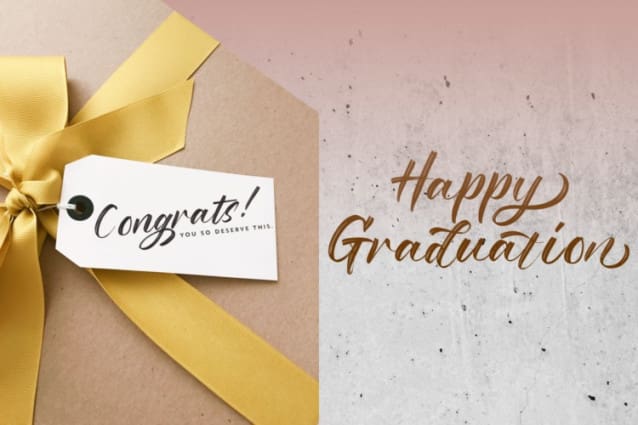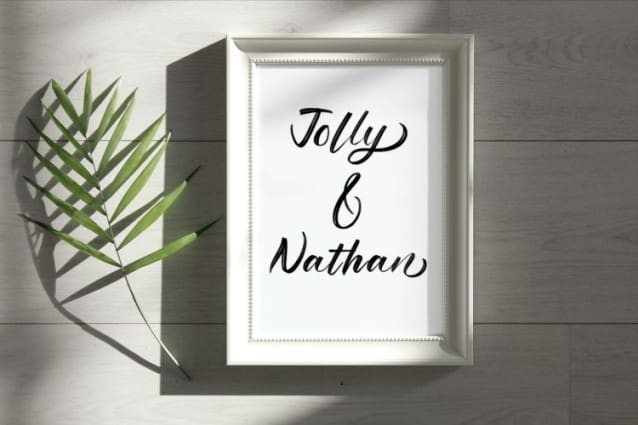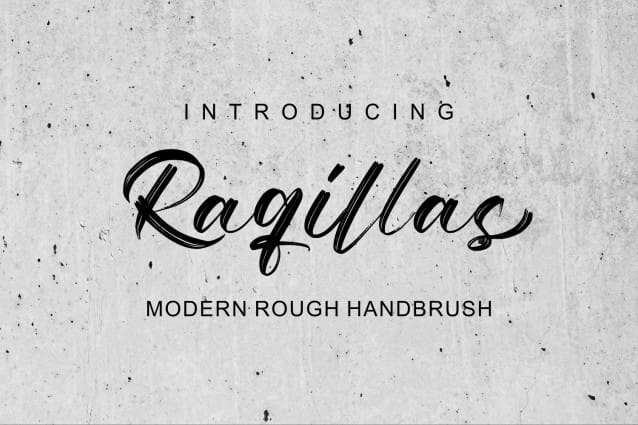
Raqillas Brush Font
Raqillas Brush Font, its modern rough brush with original dry brush imperfections, and highly bouncy base line, is crafted to be simple and straightforward but unobtrusive, Ideal for logos, handwritten quotes, product packaging, headers, posters, apparel, merchandise, social media & greeting cards.